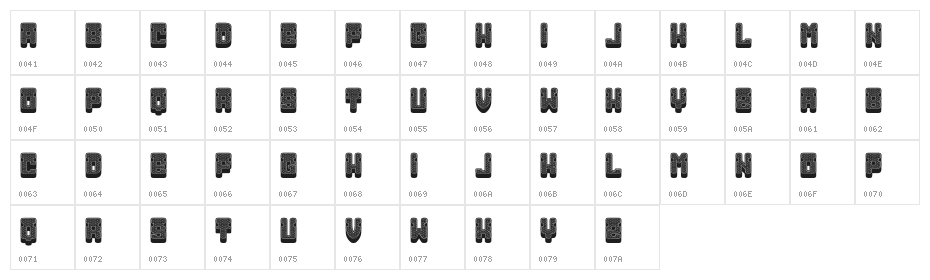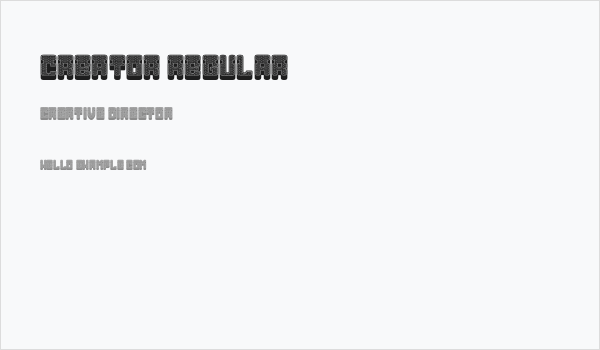
Creator Regular Font
Creator Regular Description
This font features a bold, decorative style with a unique honeycomb pattern filling each character. The letters are uppercase and have a three-dimensional effect, giving them a shadowed appearance that adds depth. The geometric design is consistent across all characters, creating a cohesive and visually striking look. The font's playful yet structured aesthetic makes it stand out, ideal for projects that require a bold statement.
| Overall Style | Modern, Decorative |
| Proposed Projects | Ideal for posters, logos, and branding materials that require a bold and eye-catching design. |